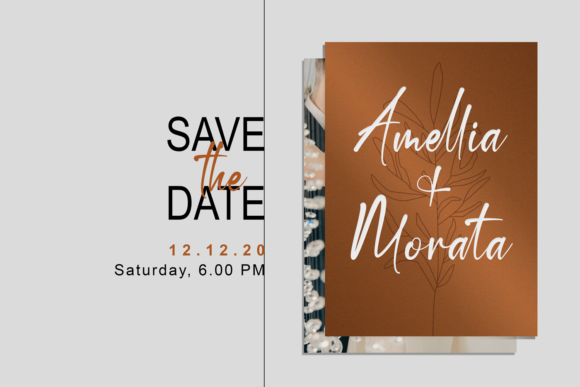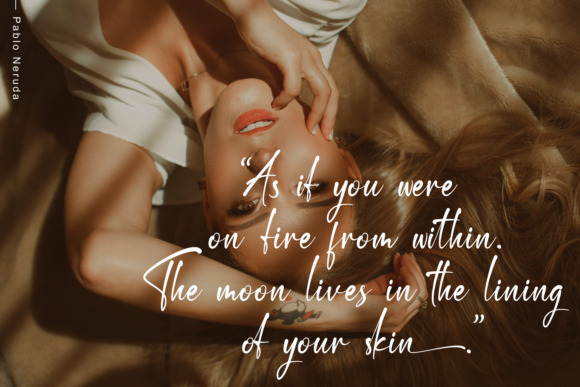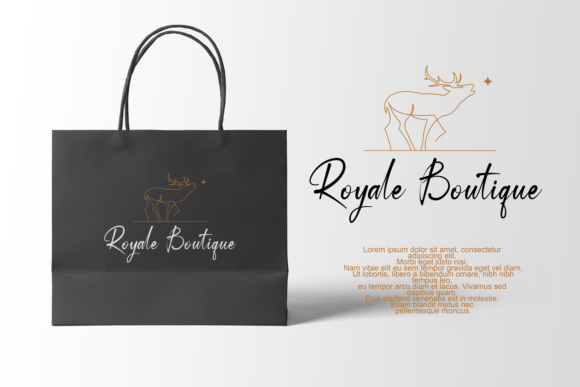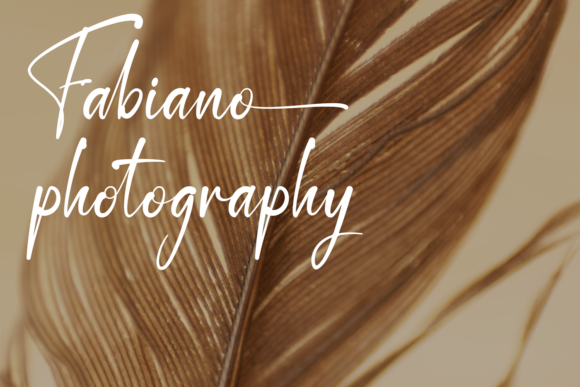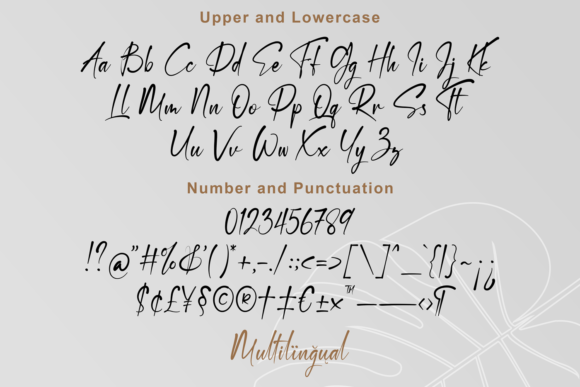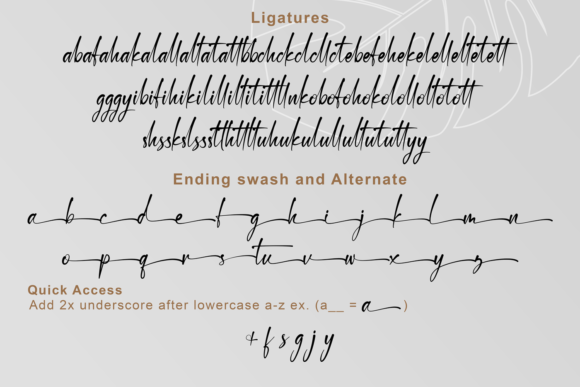
Discover the Beauty of Destoria Font: Elevate Your Designs with this Lovely Handwritten Font
Are you a designer or crafter looking for a font that can add a touch of elegance and sophistication to your creations? Look no further than Destoria Font, a lovely and relaxed handwritten font that is sure to elevate your designs. In this article, we’ll take a closer look at Destoria Font, its features, and how it can benefit your design projects.
What is Destoria Font?
Destoria Font is a beautiful, handwritten font that exudes a sense of calmness and serenity. Its gentle and beautiful flow makes it perfect for a wide range of design projects, from creative crafts to digital designs. The font is PUA encoded, which means you can access all of the glyphs and swashes with ease, giving you more creative freedom and flexibility.
Key Features of Destoria Font
- PUA Encoding: Destoria Font is PUA encoded, making it easy to access all of the glyphs and swashes. This means you can create beautiful and unique designs without any hassle.
- Handwritten Style: The font has a lovely, handwritten style that adds a personal touch to your designs. Its relaxed and gentle flow makes it perfect for creating elegant and sophisticated designs.
- Versatility: Destoria Font is versatile and can be used for a wide range of design projects, from digital designs to creative crafts.
Benefits of Using Destoria Font
So, why should you choose Destoria Font for your design projects? Here are some benefits of using this lovely font:
- Elegant and Sophisticated Designs: Destoria Font can help you create elegant and sophisticated designs that are sure to impress your clients or audience.
- Easy to Use: The font is easy to use and can be accessed with ease, thanks to its PUA encoding.
- Time-Saving: With Destoria Font, you can save time and effort, as you can create beautiful designs quickly and easily.
- Unique and Creative Designs: The font’s glyphs and swashes allow you to create unique and creative designs that stand out from the crowd.
Who Can Benefit from Destoria Font?
Destoria Font is perfect for a wide range of designers and crafters, including:
- Graphic Designers: Graphic designers can use Destoria Font to create elegant and sophisticated designs for their clients.
- Crafters: Crafters can use the font to create beautiful and unique designs for their craft projects, such as scrapbooking, card making, and more.
- Digital Designers: Digital designers can use Destoria Font to create stunning digital designs, such as website headers, social media graphics, and more.
In conclusion, Destoria Font is a lovely and relaxed handwritten font that can elevate your designs and add a touch of elegance and sophistication. Its PUA encoding, gentle flow, and versatility make it perfect for a wide range of design projects. Whether you’re a graphic designer, crafter, or digital designer, Destoria Font is a great choice for creating beautiful and unique designs. So why wait? Download Destoria Font today and start creating stunning designs that impress!
With Destoria Font, you can unlock a world of creative possibilities and take your designs to the next level. Its ease of use, unique glyphs, and swashes make it an ideal choice for designers and crafters who want to create something special. So, don’t miss out on this amazing font – get Destoria Font now and start designing like a pro!